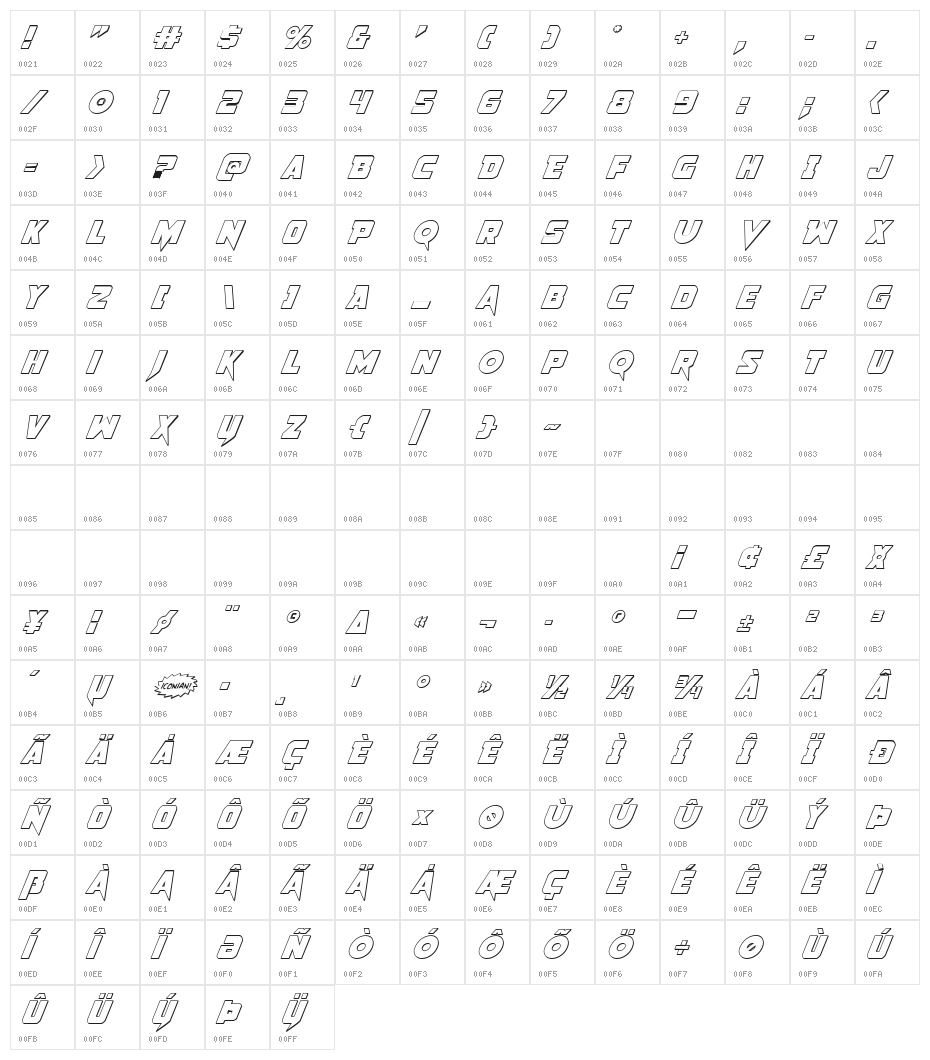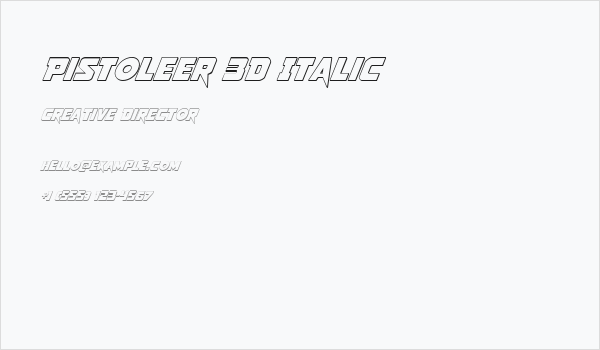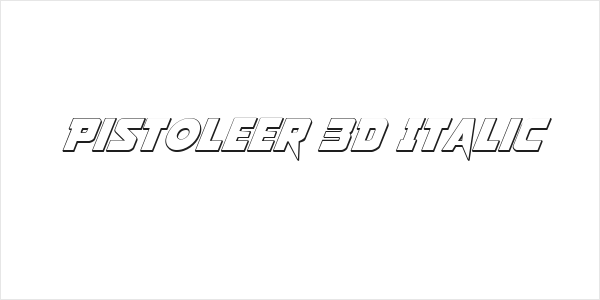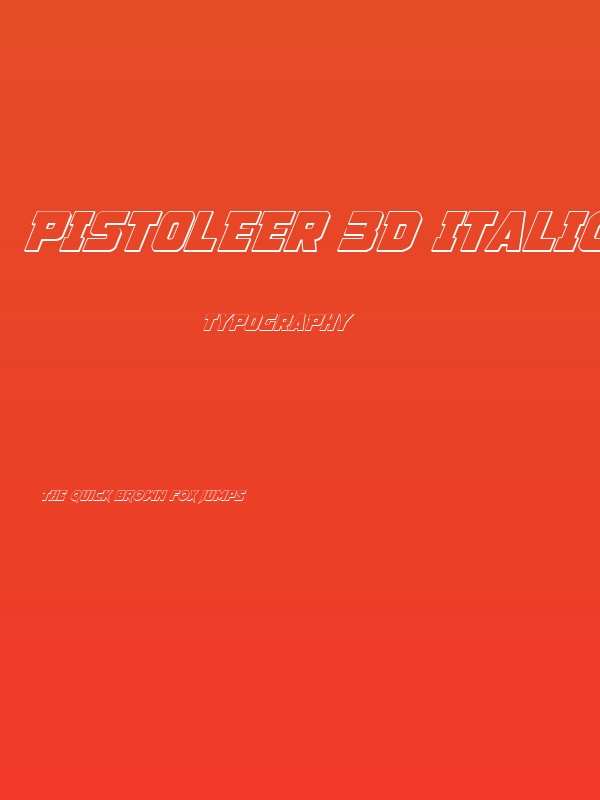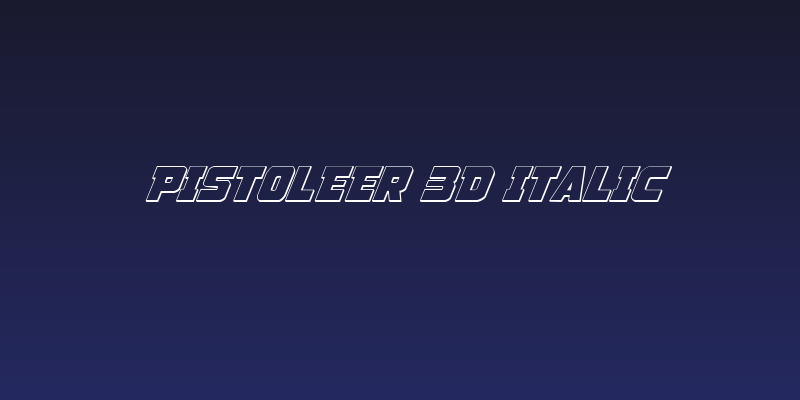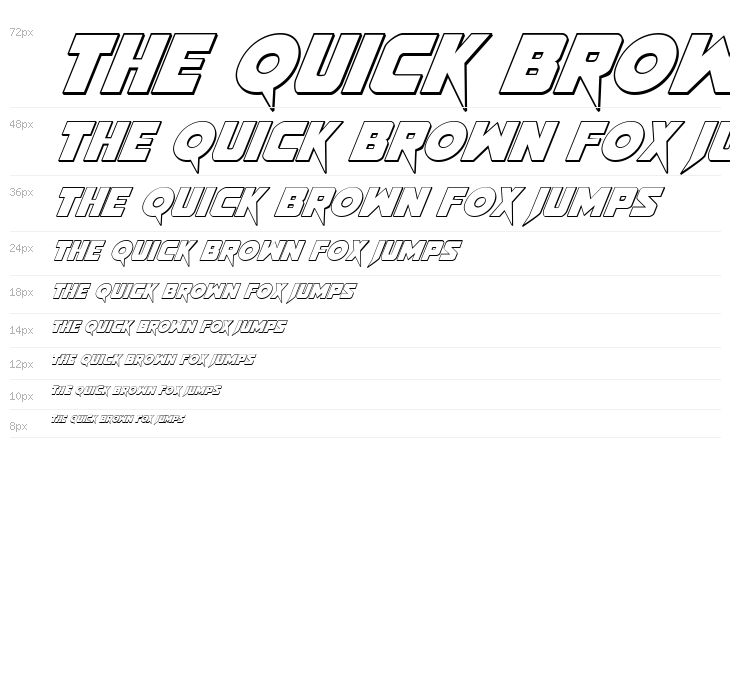
Pistoleer 3D Italic Font
Pistoleer 3D Italic Description
This font features a bold, three-dimensional design with a strong italic slant, giving it a dynamic and energetic appearance. The characters are outlined, creating a striking visual effect that emphasizes their boldness and depth. The angular, geometric shapes of the letters contribute to a modern and futuristic aesthetic, while the italic style adds a sense of motion and speed. The font includes a full set of uppercase and lowercase letters, numbers, and a variety of special characters, making it versatile for various design needs. Its unique style is ideal for projects that require a standout, impactful typeface.
Proposed ProjectsIdeal for video game titles, movie posters, sports branding, and any project needing a bold, futuristic look.